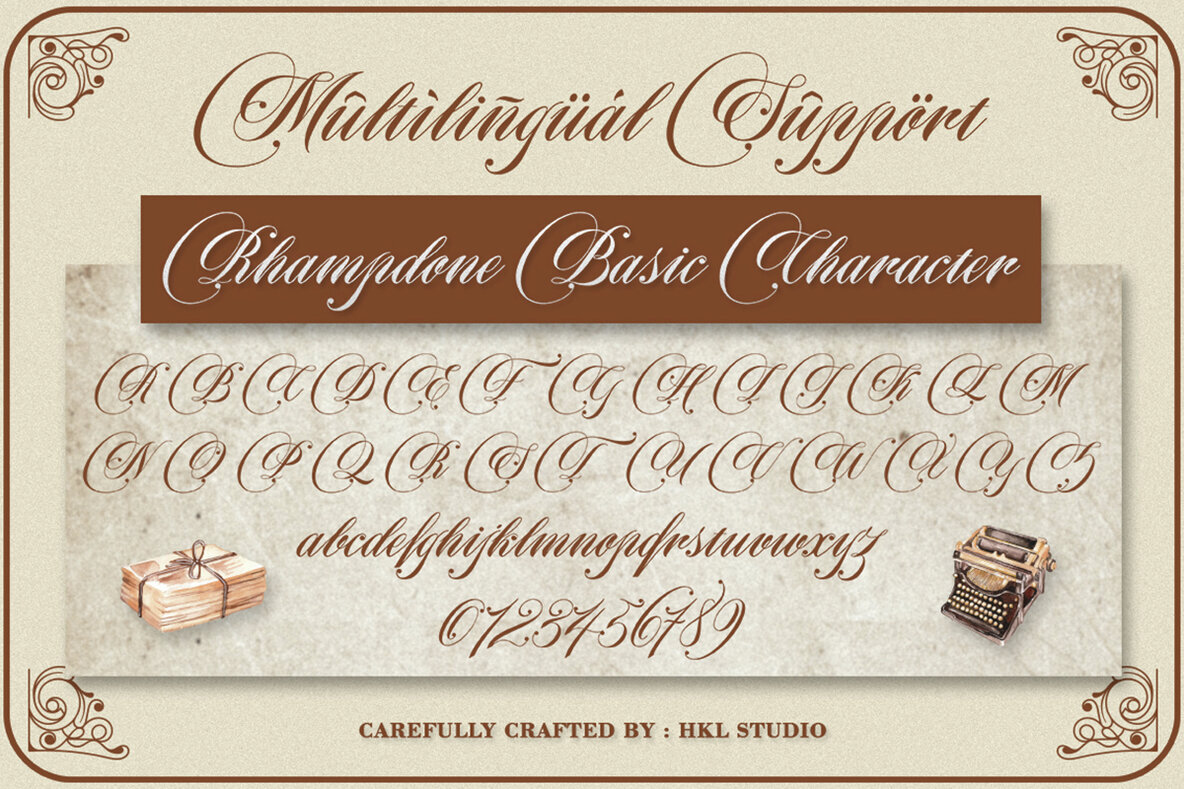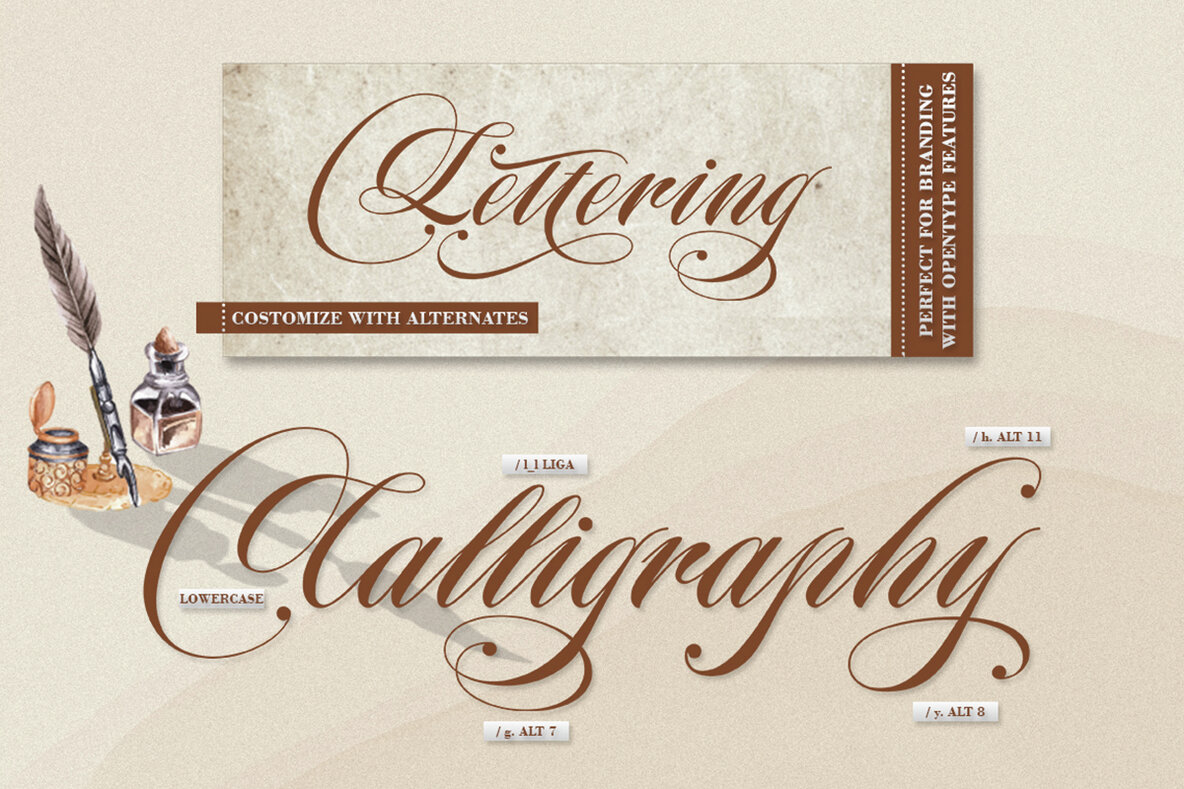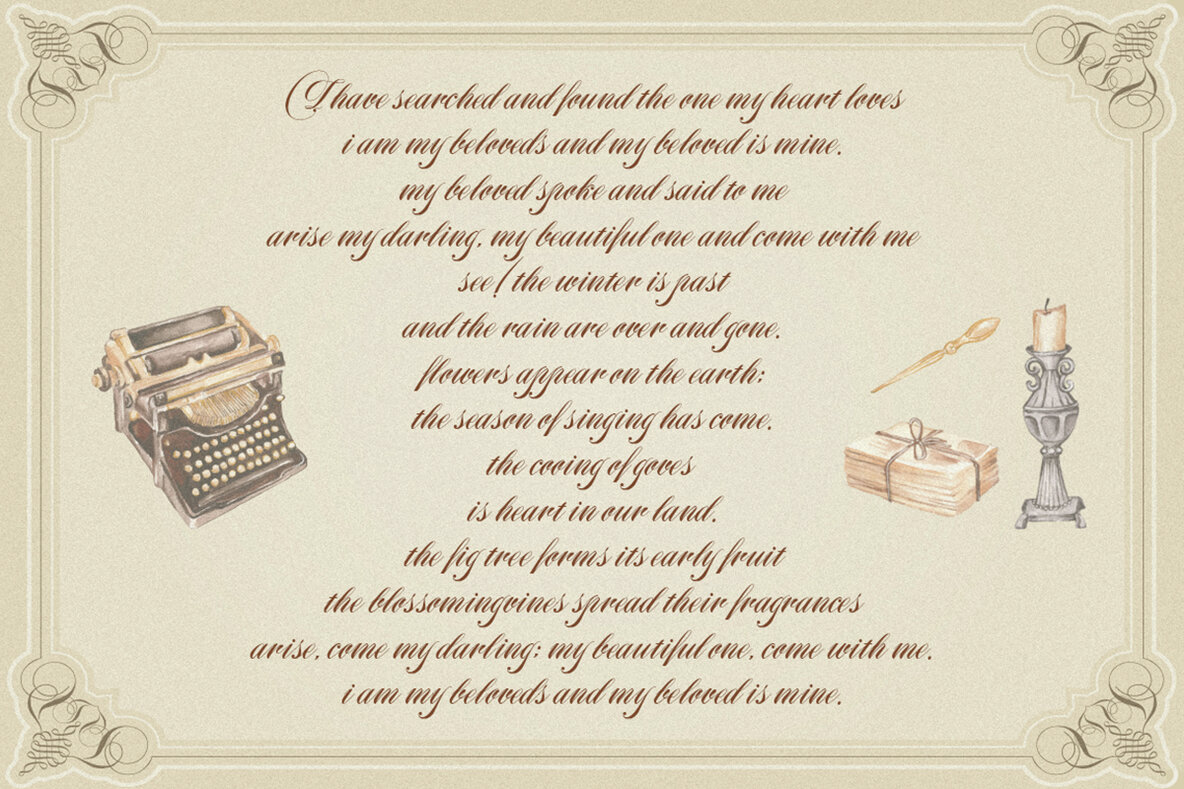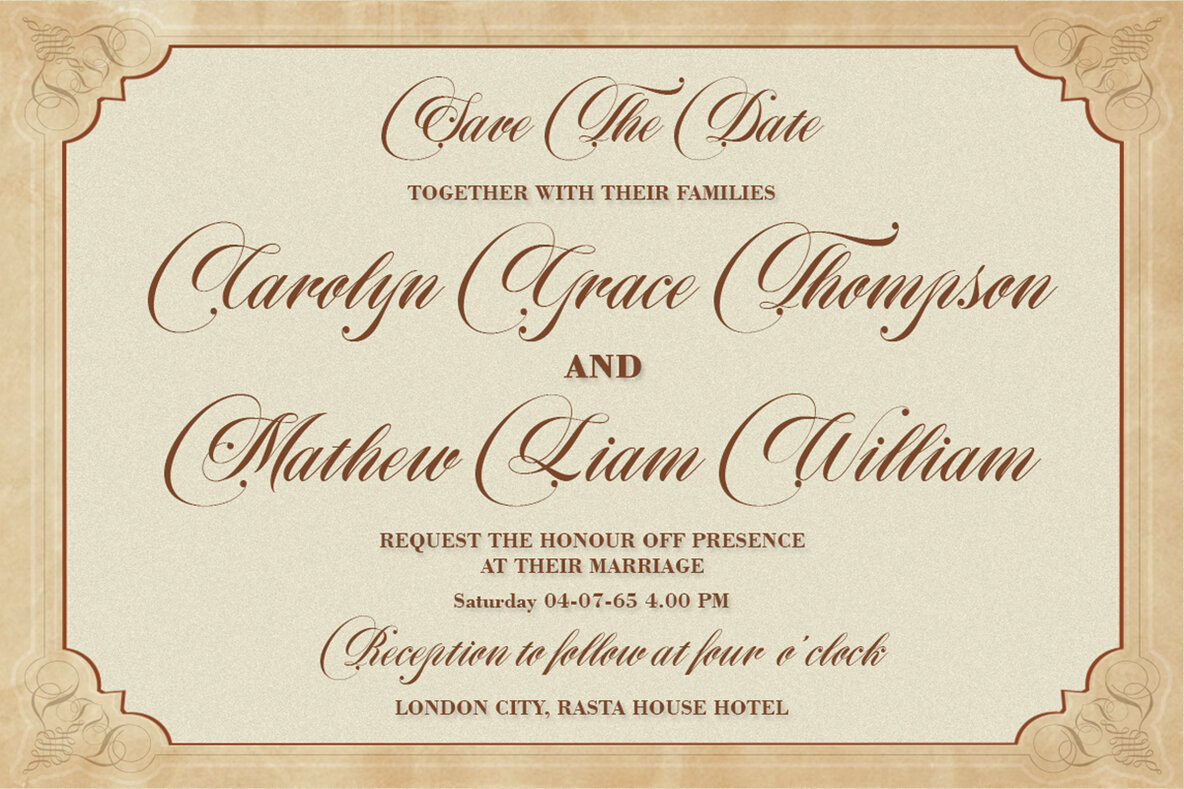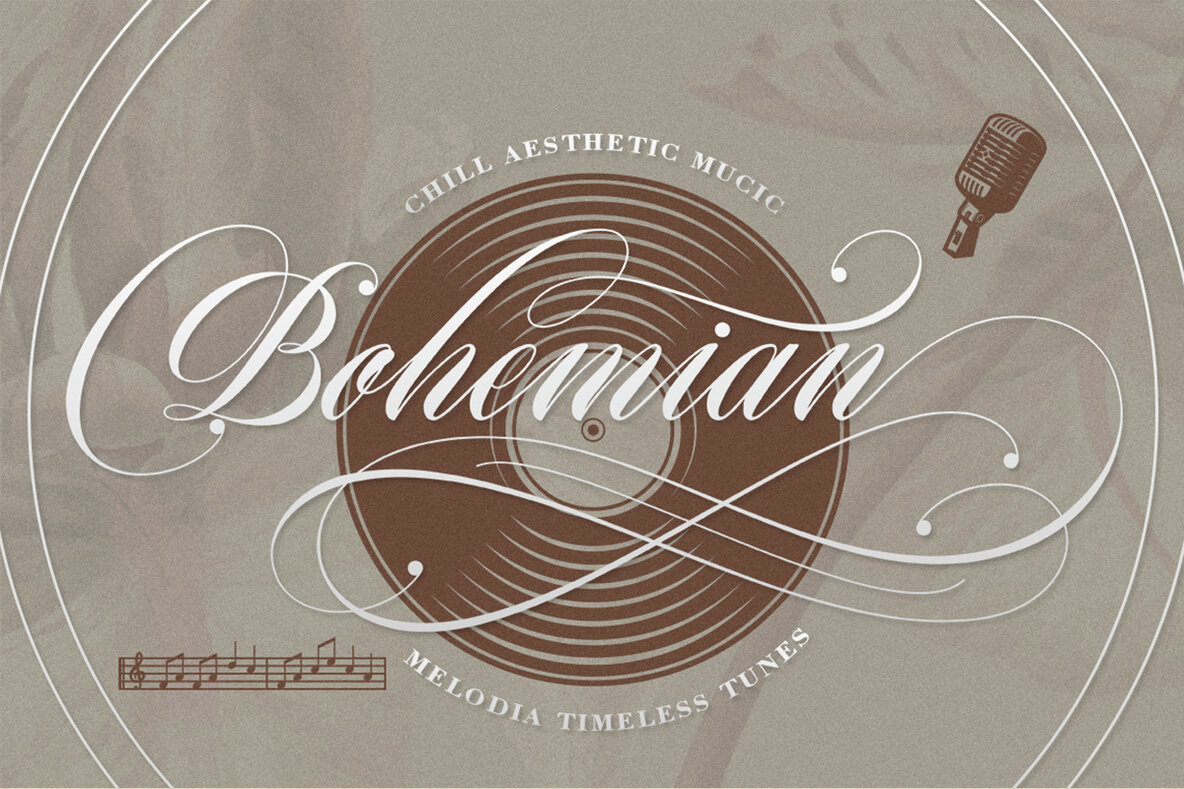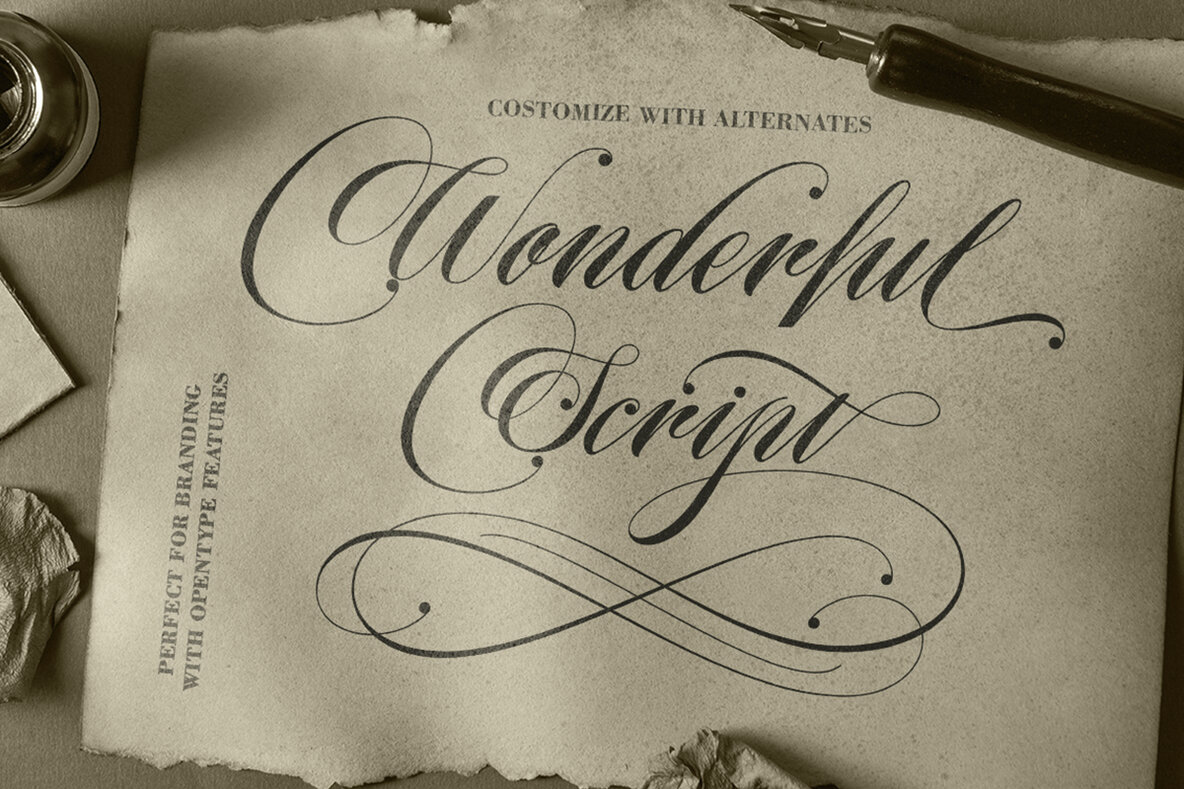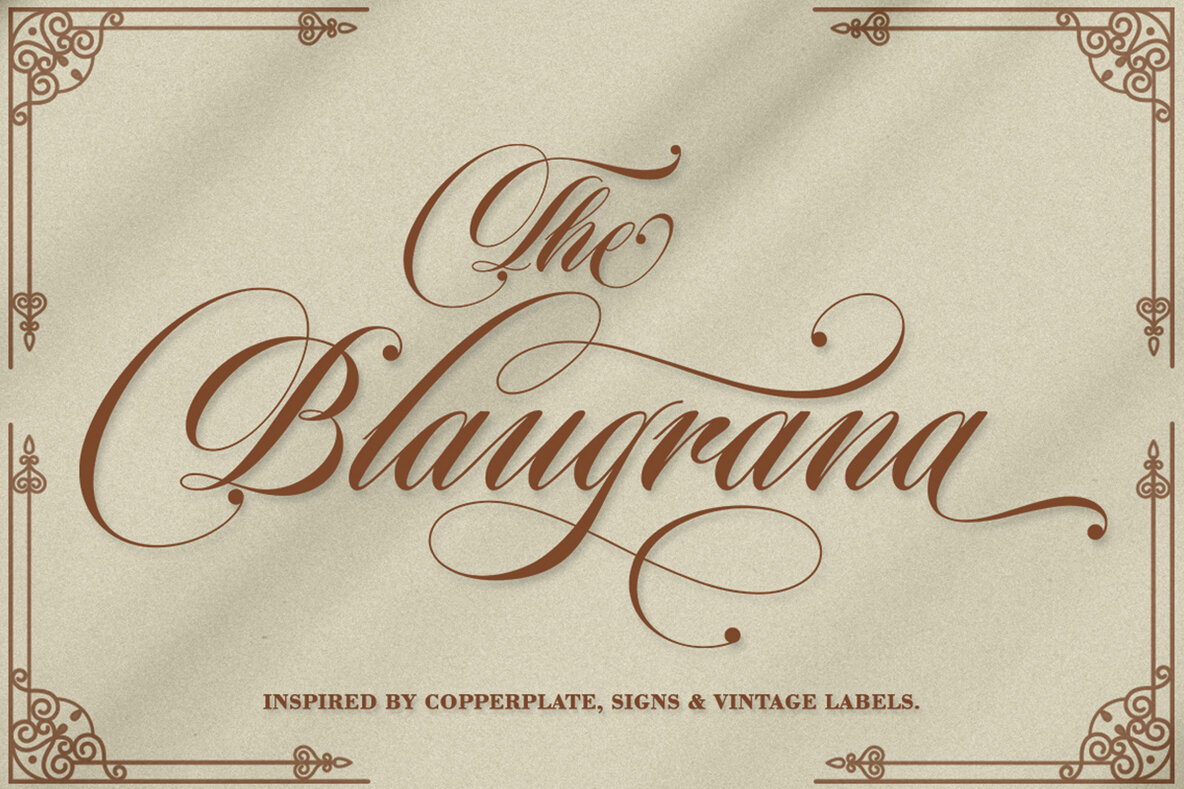
Rhampdone Font
Rhampdone Script is a vintage calligraphy font that combines elegant copperplate calligraphy with hand-lettering elements. This versatile typeface features smooth, clean lines that convey a sense of stylish elegance, making it perfect for feminine, glamorous, and simple designs. The font is available in both Clean and Aged versions, offering beautiful alternate characters for uppercase and lowercase letters. It also includes multilingual support for Western European languages, including English, Danish, Dutch, Estonian, Finnish, French, German, Hungarian, Icelandic, Italian, Norwegian, Polish, Portuguese, Spanish, and Swedish.
Ideal for a wide range of applications, Rhampdone Script is perfect for creating stunning logos, wedding invitations, alcohol labels, romantic cards, and more. The font's alternate characters and styles shine when used in Adobe Illustrator or Photoshop. Note that its special features are not supported in Microsoft Word, but the font remains a powerful tool for any designer looking to add a touch of vintage elegance to their projects.